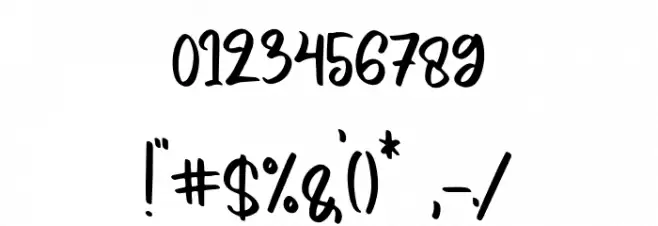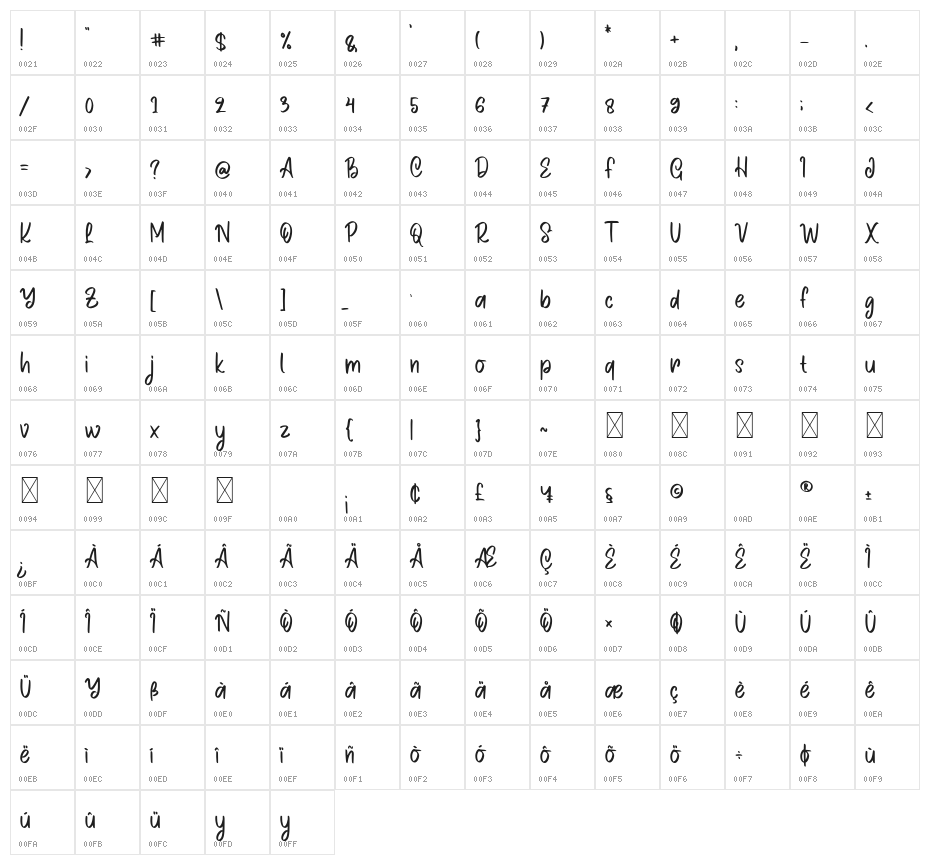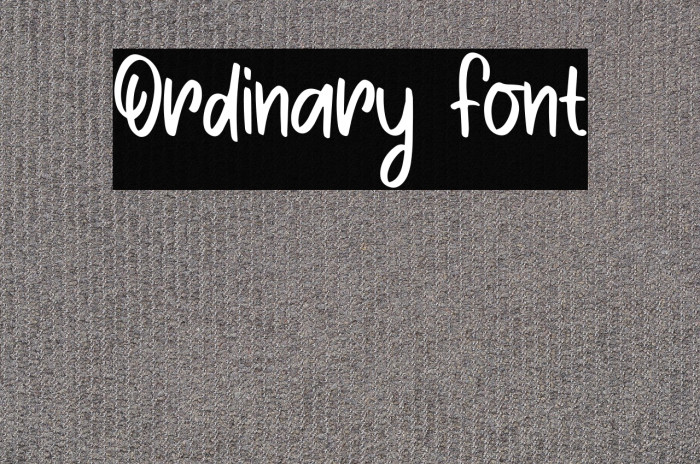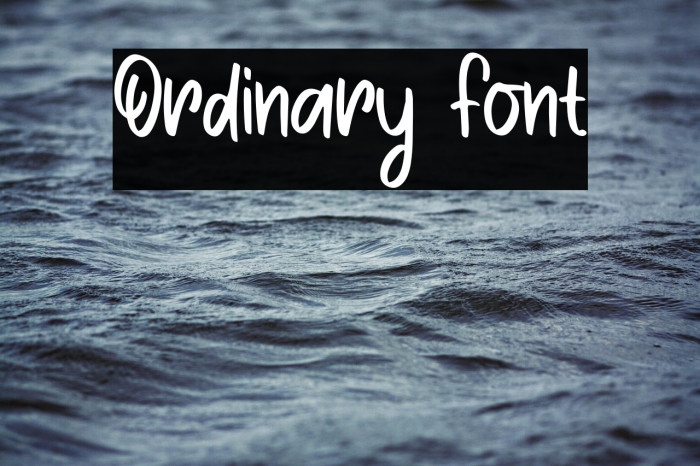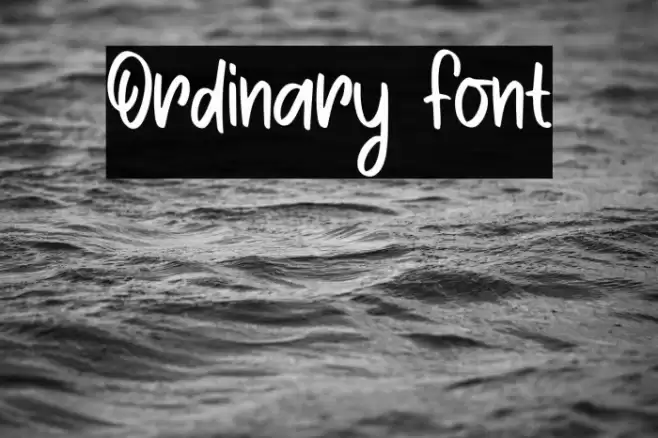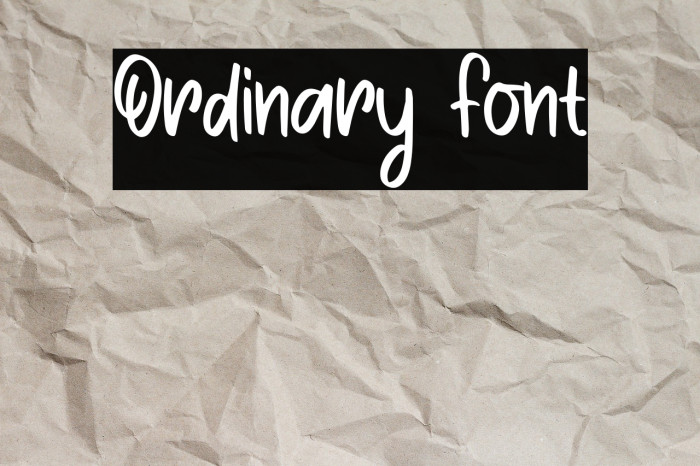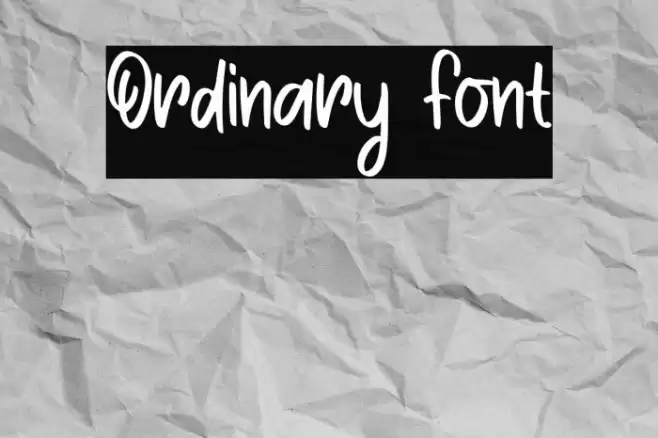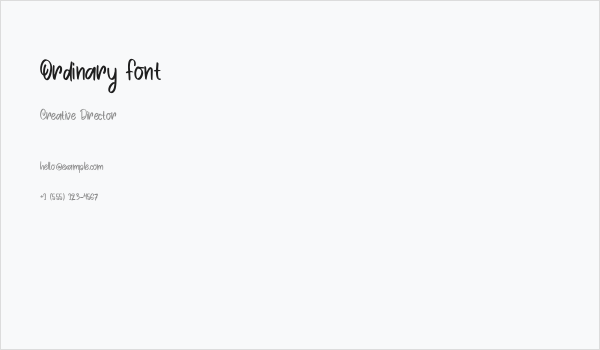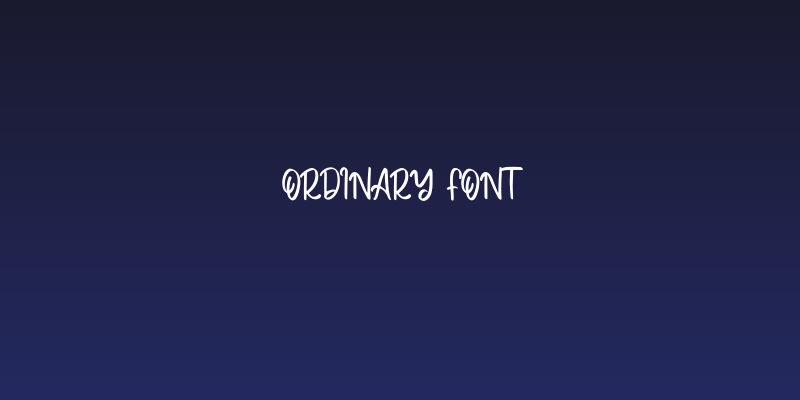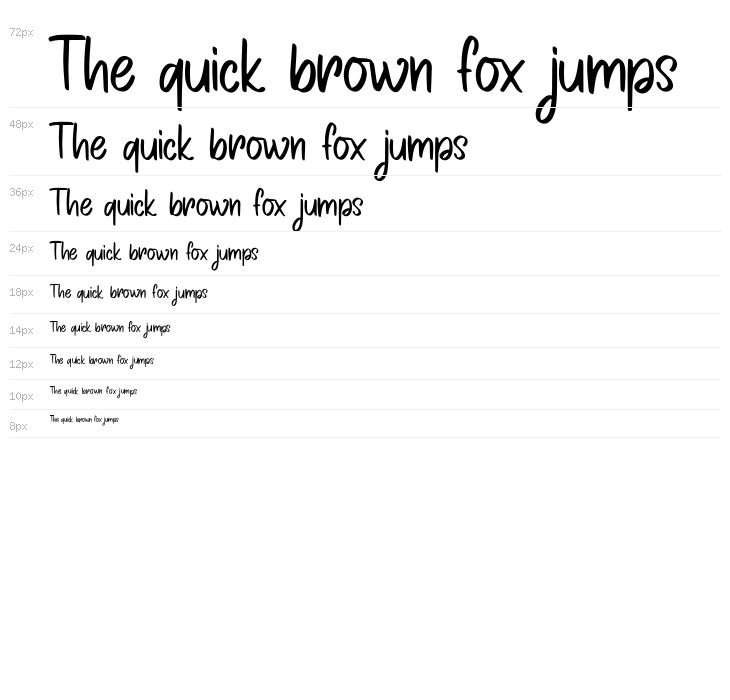
Ordinary Font Font
Ordinary Font Description
This font features a playful and casual handwritten style, characterized by its smooth, flowing curves and slightly irregular letterforms. The uppercase letters are bold and expressive, with a slight slant that adds to the informal aesthetic. The lowercase letters maintain a consistent style, with rounded edges and a friendly appearance. The numerals are clear and easy to read, matching the overall playful theme. Special characters are well-integrated, maintaining the same casual and approachable feel. This font is perfect for projects that require a personal touch, such as invitations, greeting cards, or branding for creative businesses.